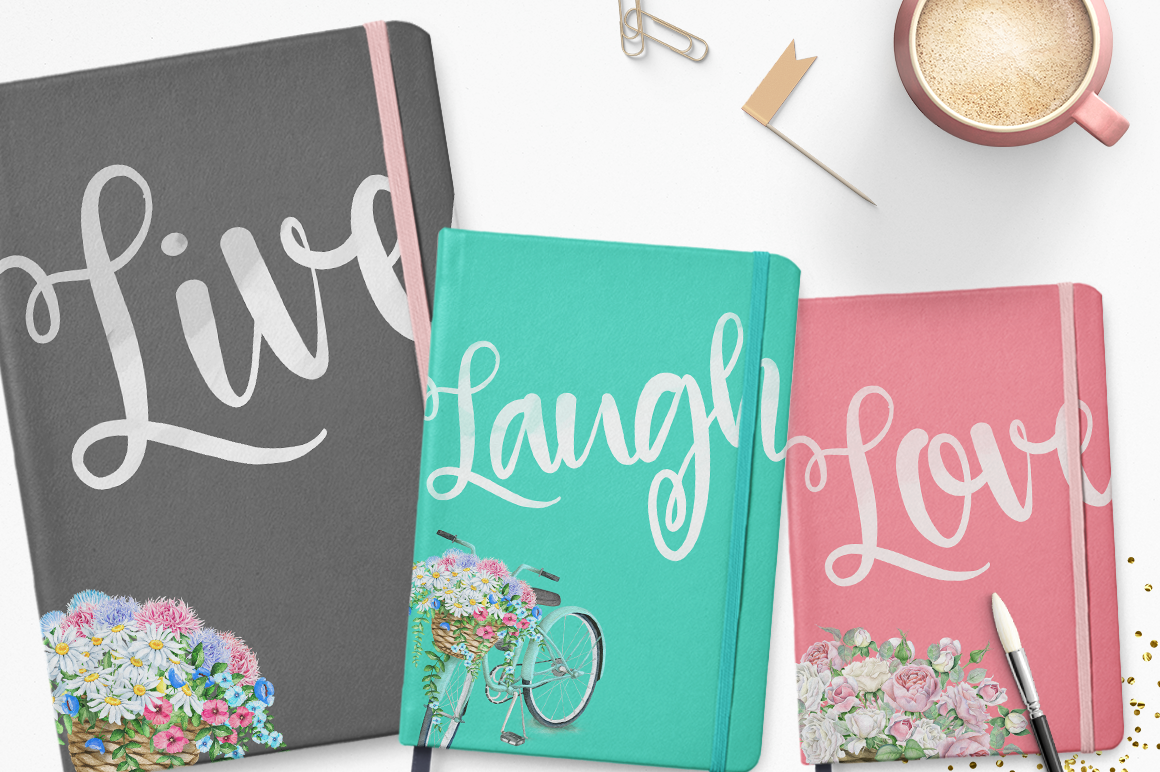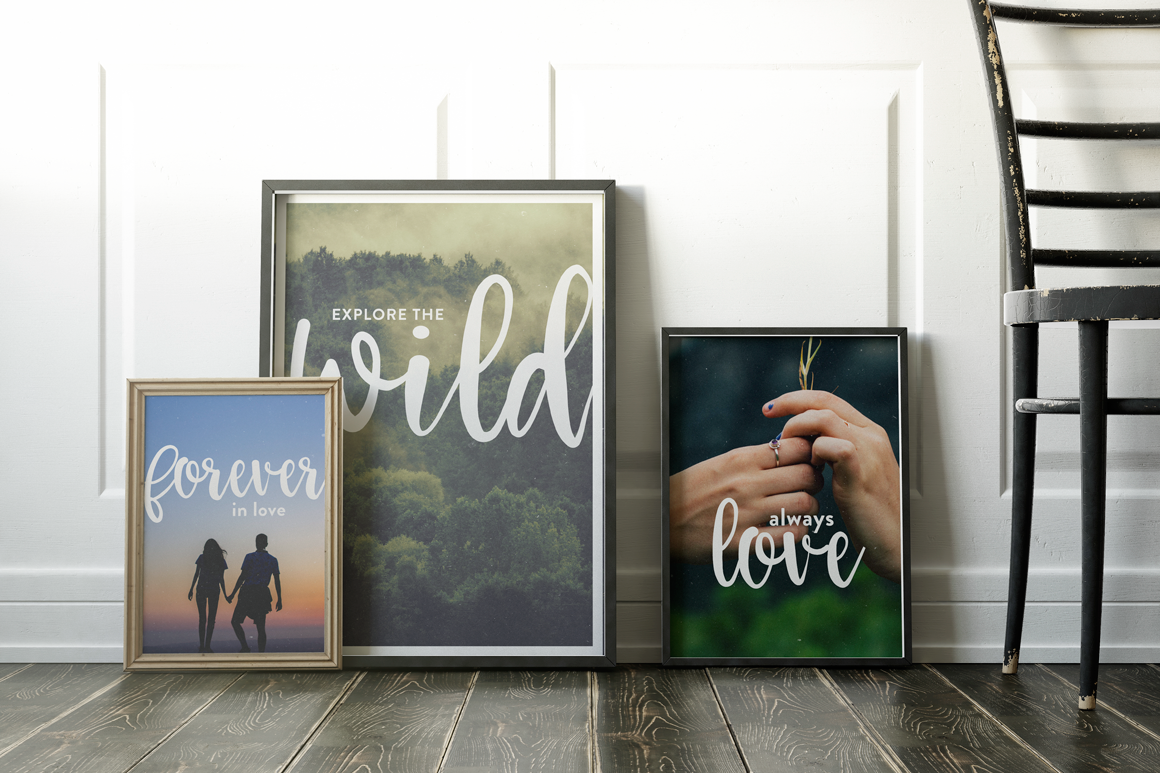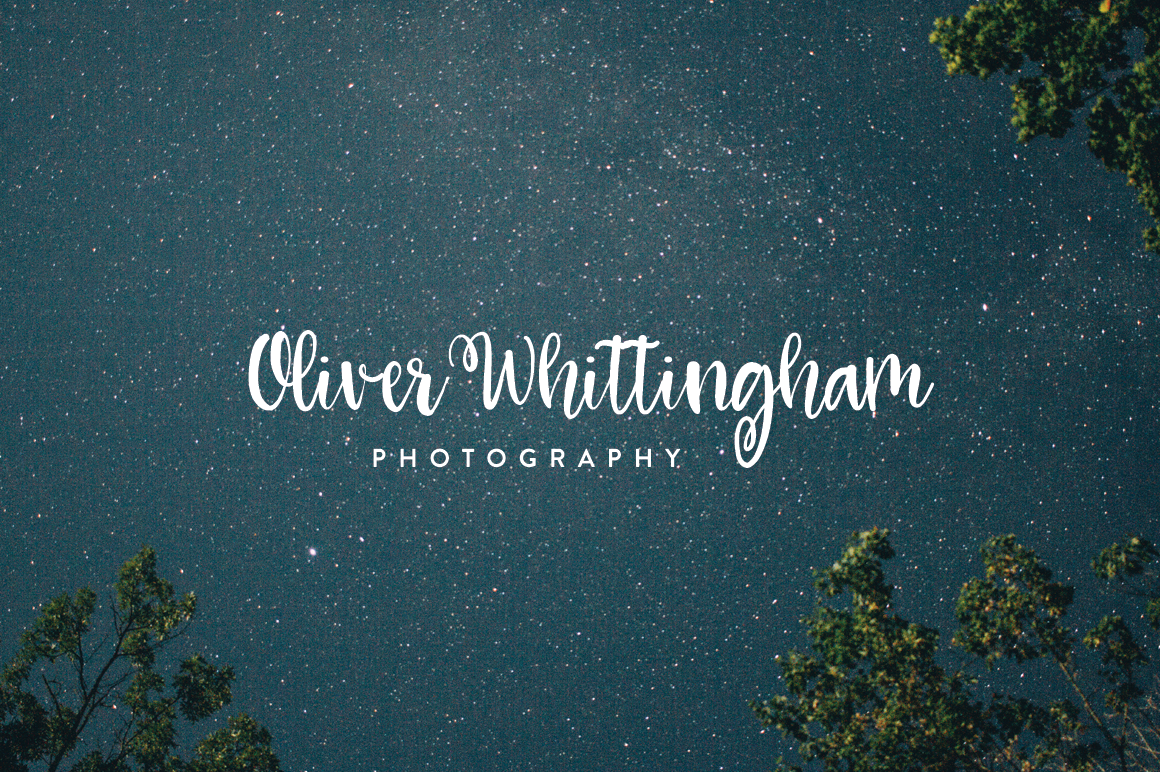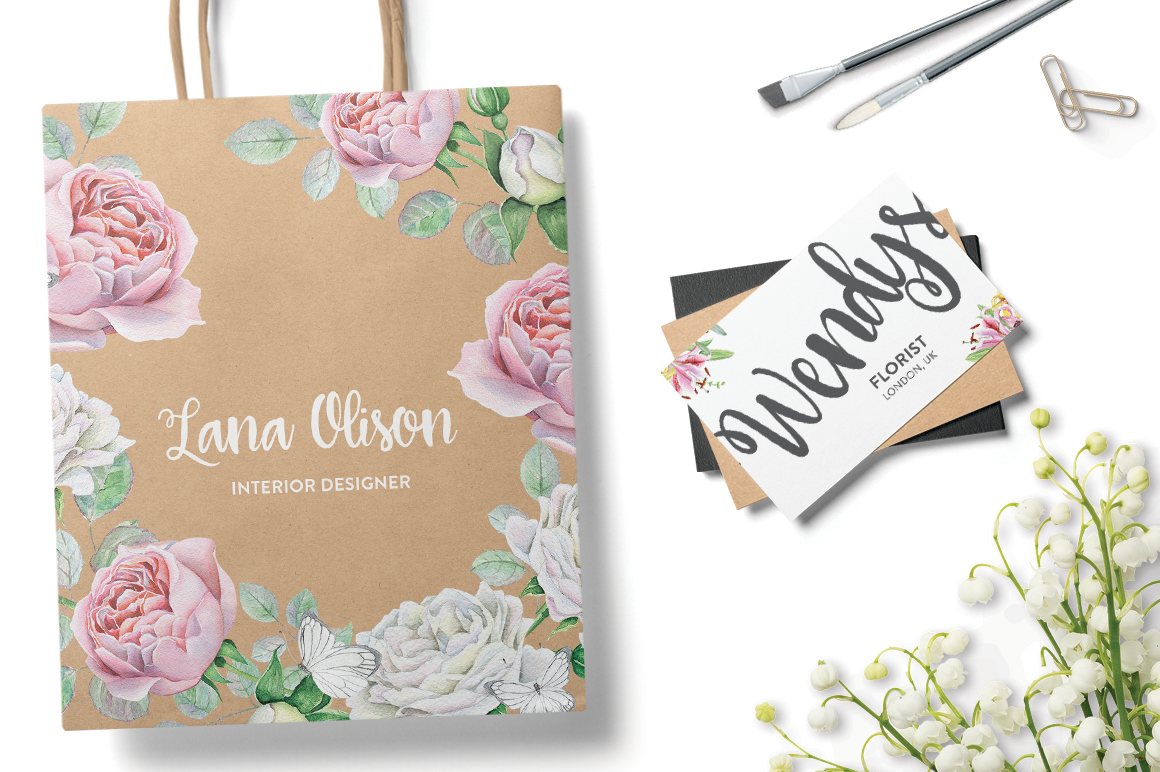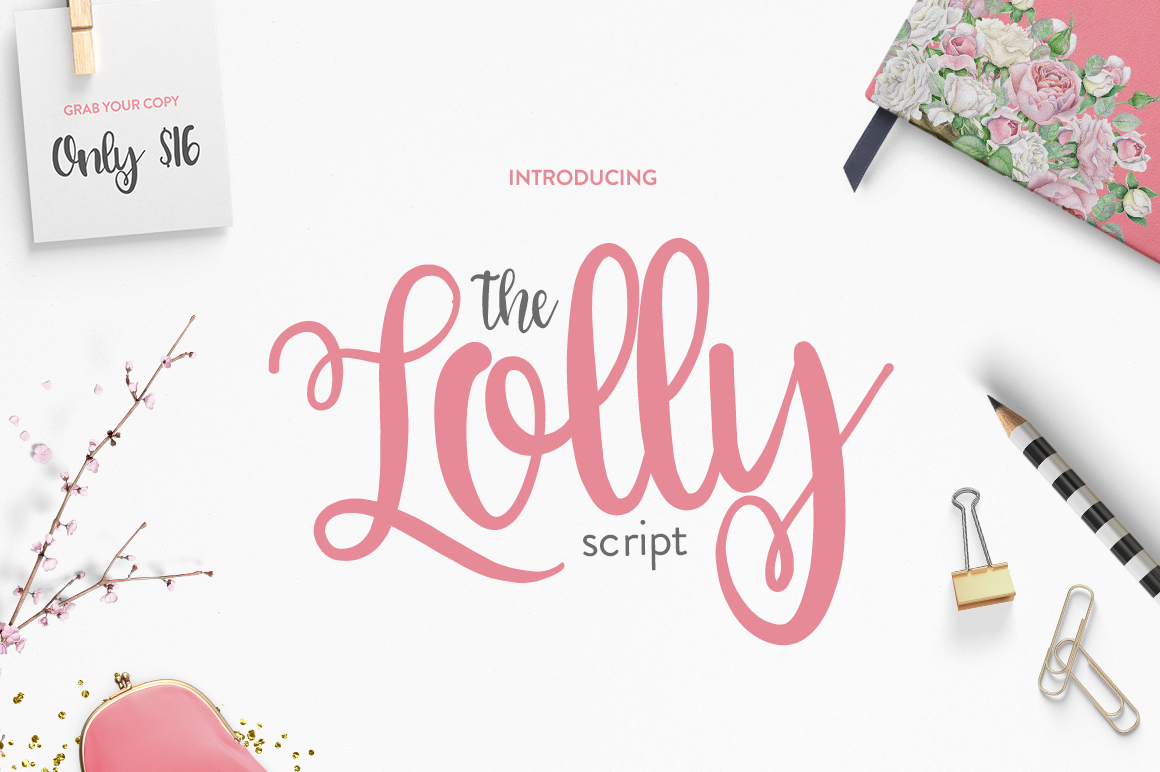
Lolly Script Font by Salt & Pepper Designs | Creative Market
Follow us on YouTube and receive the Simply Lovely font for FREE!! - https://www.youtube.com/@dezgner - - PURCHASE OUR ENTIRE STORE OF FONTS FOR ONLY $29 - https://crmrkt.com/pQ91eA - The Lolly Script is a brand new thick script based font. Available for both personal and commercial use. No extended license is required. Download and use The Lolly Script for anything and everything. This font is 100% accessible to all, across all programs and includes over 100 different glyphs. What's Included - Lolly Script Font (OTF & TTF Format) - Commercial Licensing - Multiple Languages Supported - Instant Download - Free Updates If you have any queries, questions or issues please don't hesitate to contact us direct. | Lolly Script Font | Salt & Pepper Designs